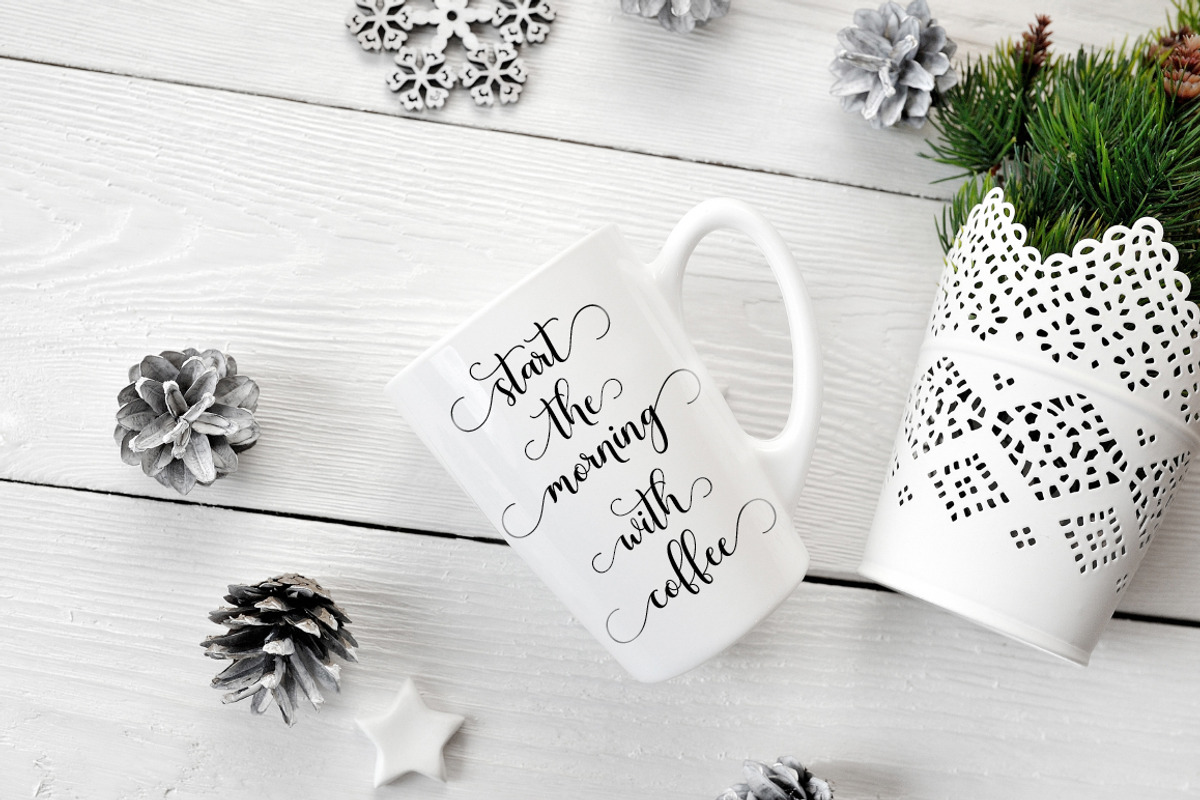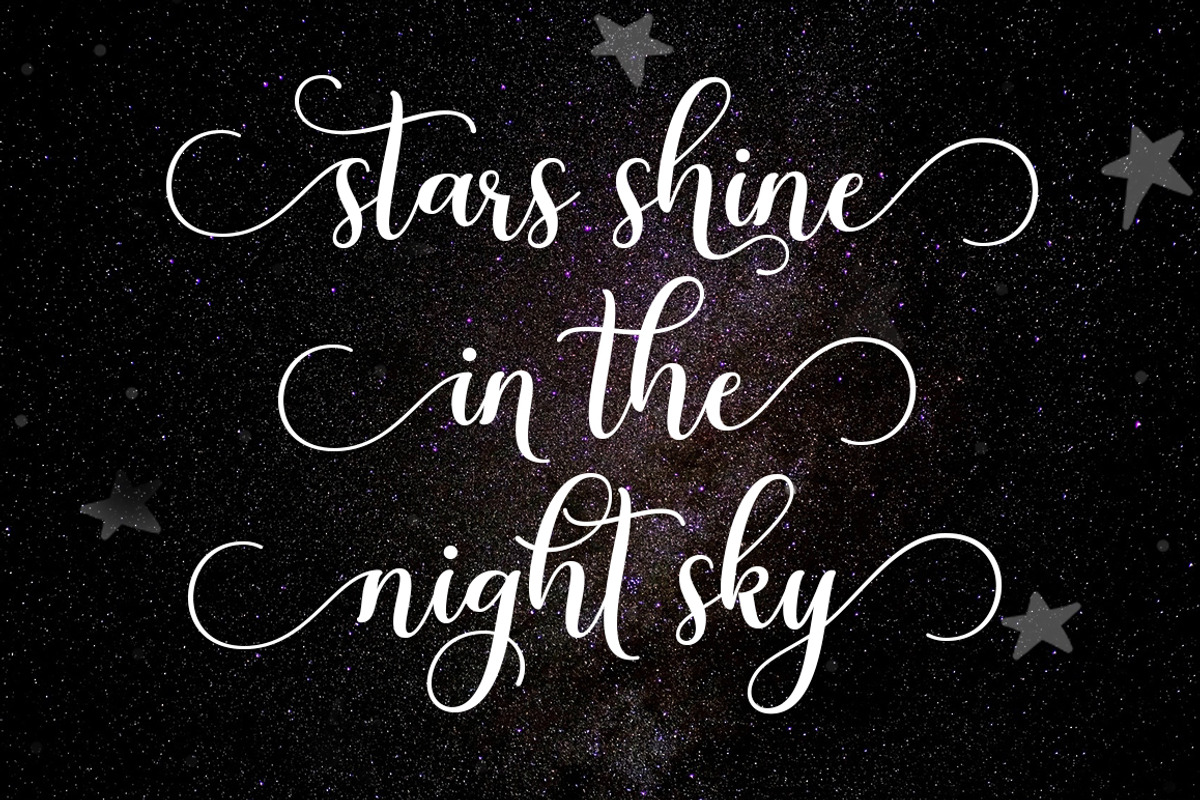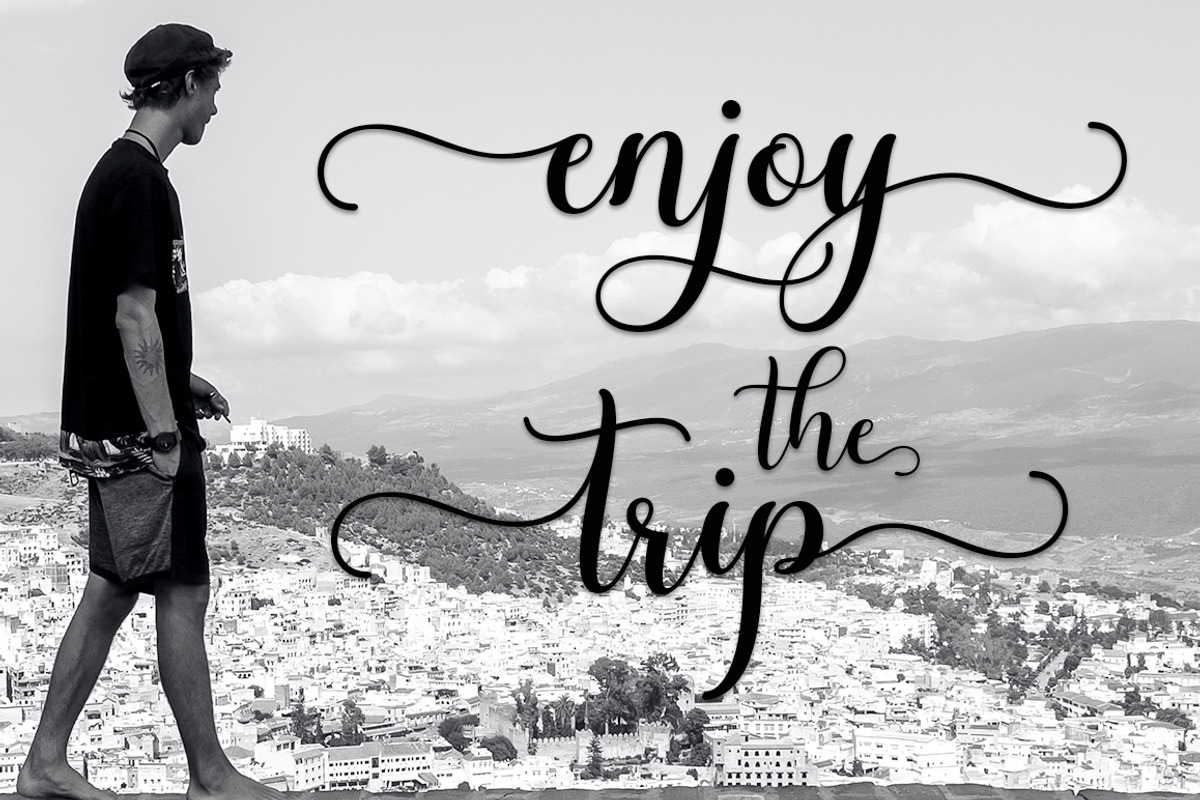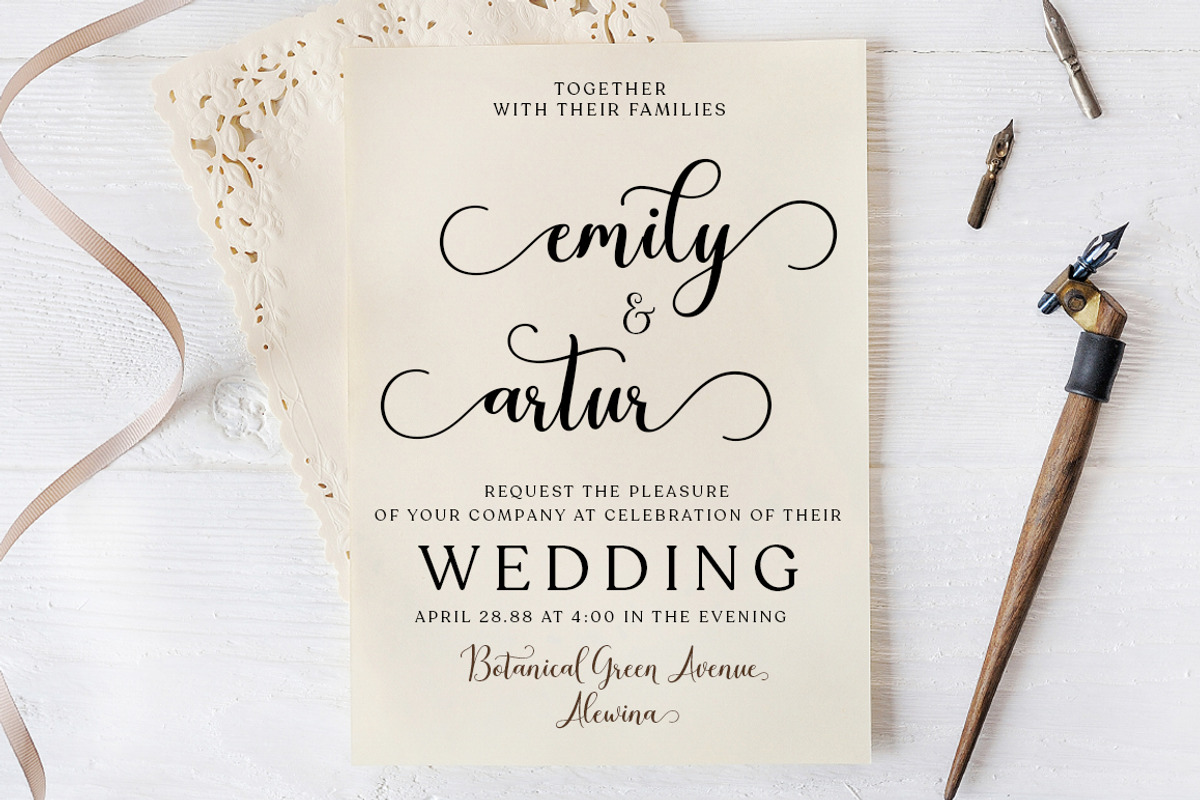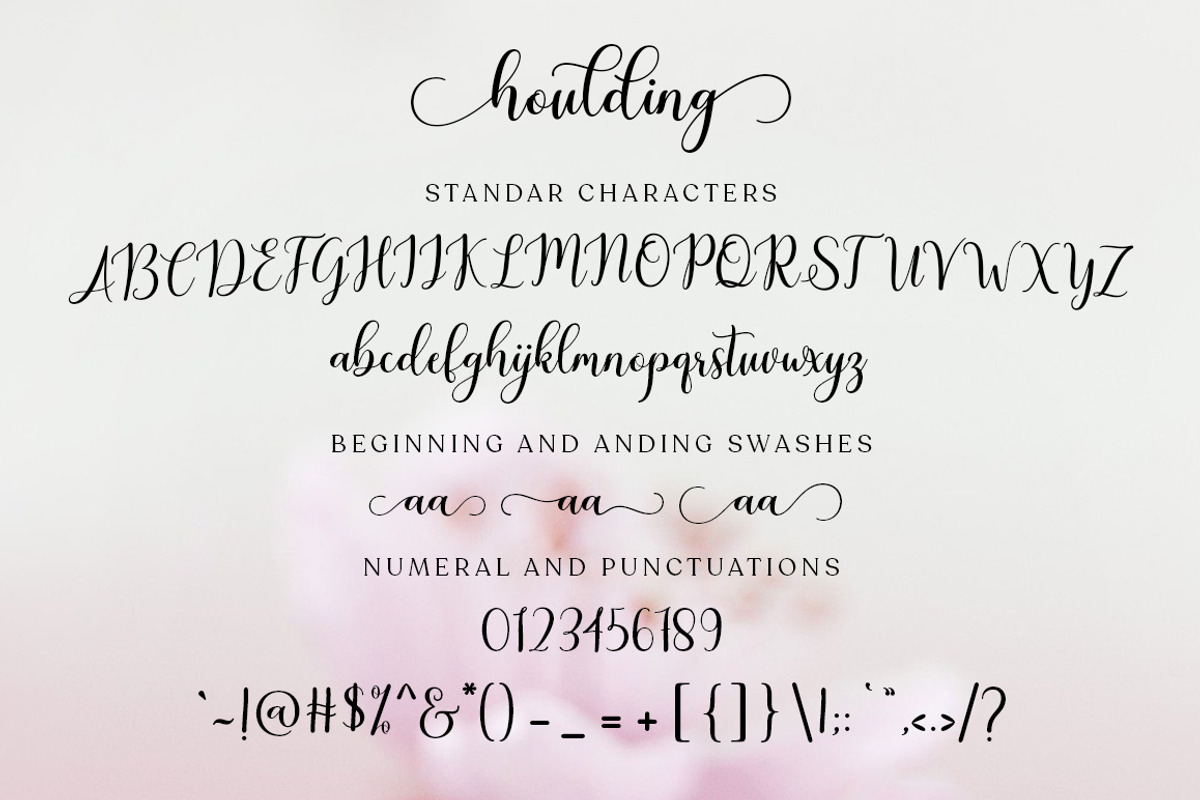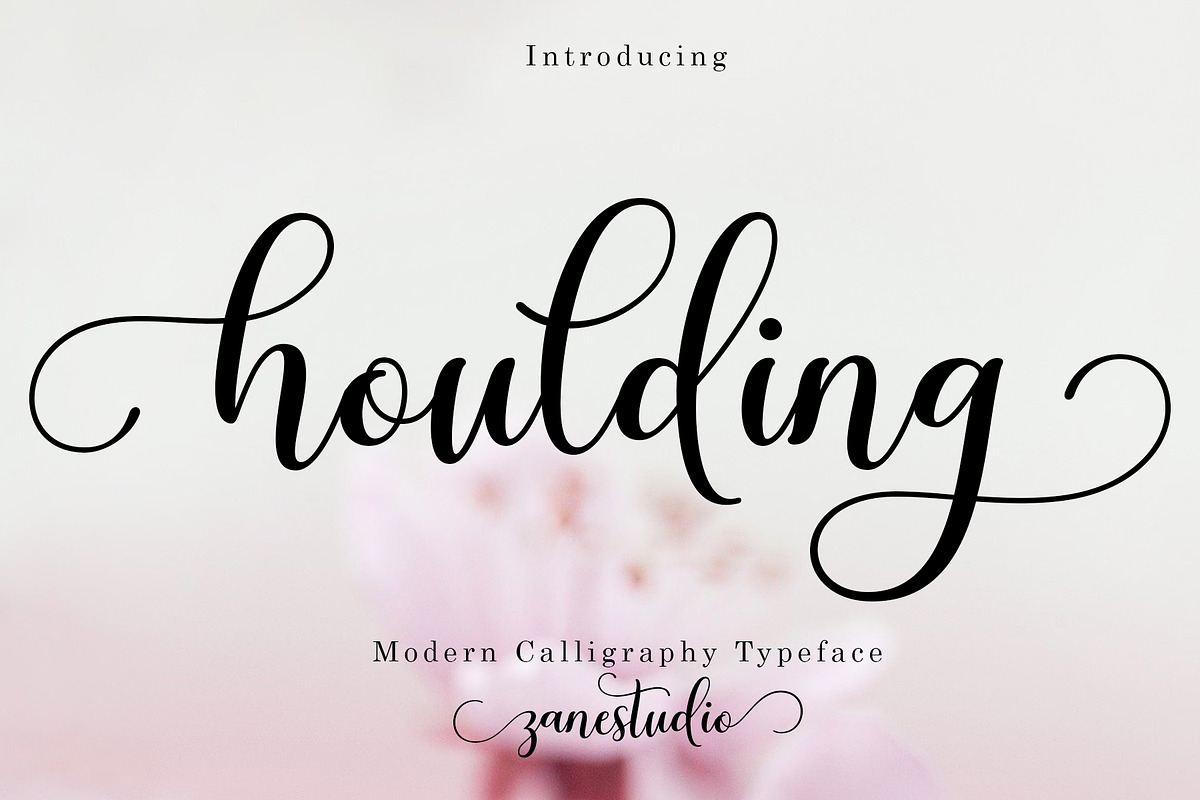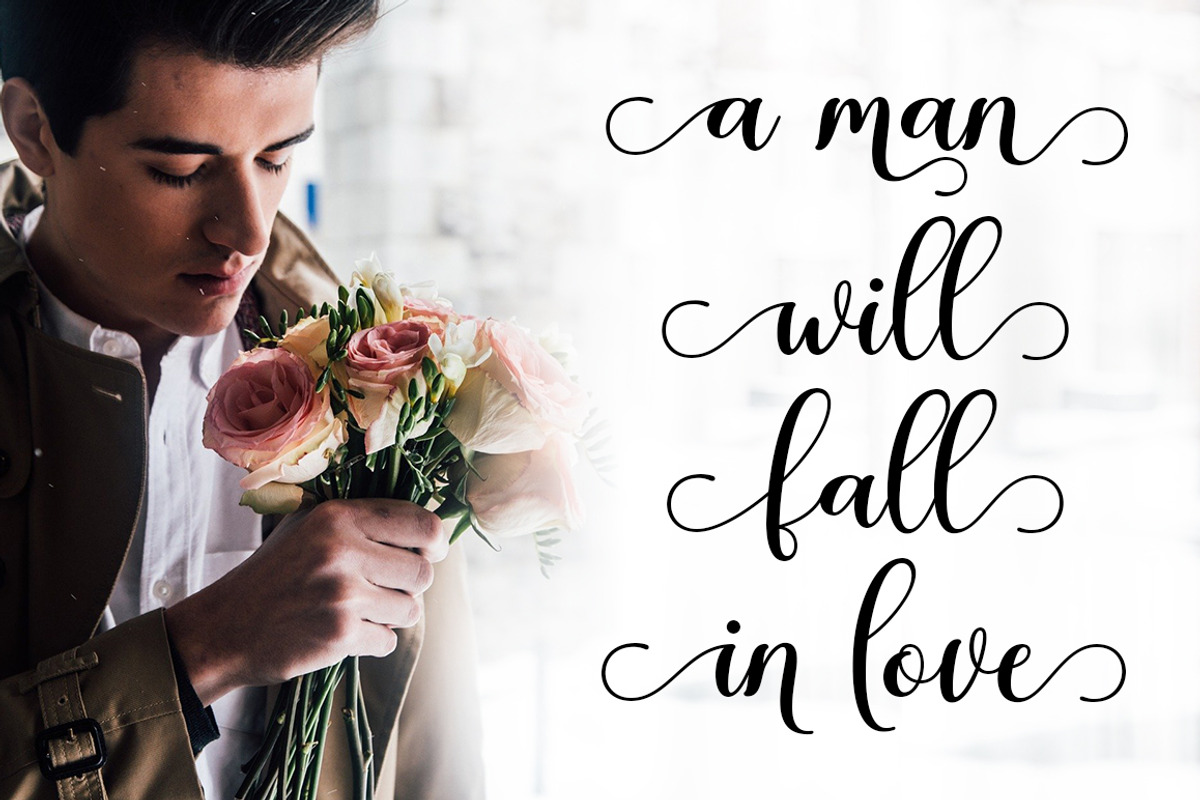
Houlding Script
Introducing Houlding Script! Houlding Script, a new & modern script with a handcrafted calligraphy style, decorative characters and attractive baselines! So beautiful in invitations like greeting cards, branding materials, business cards, quotes, posters and more !!
Houlding Script is equipped with 440 glyphs. Alternative characters are divided into several Open Type features such as Swash, Stylistic Sets, Stylistic Alternates, Contextual Alternates.